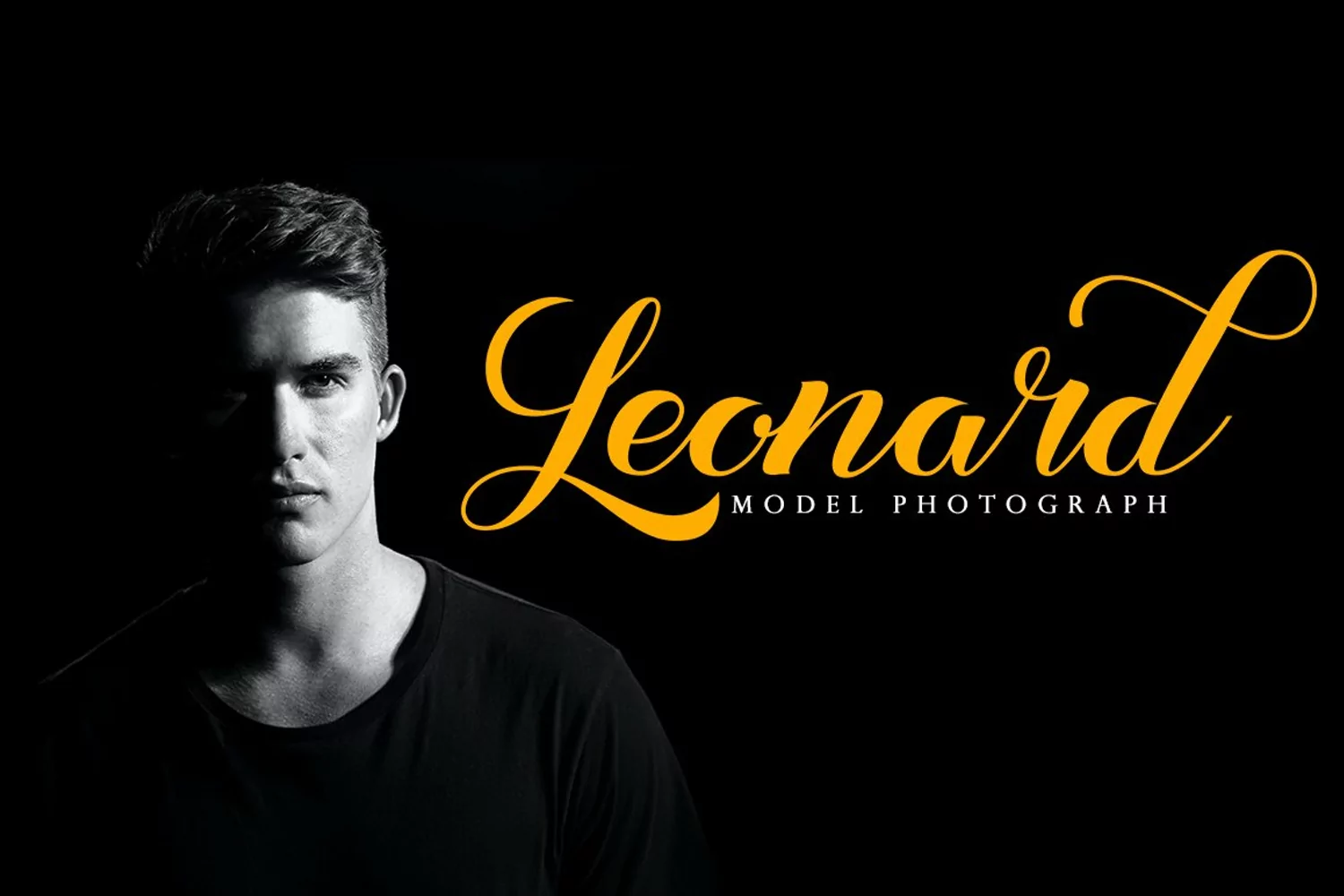
Baby tokyo is a, bold handwritten font with an modern style. This font is PUA encoded which means you can access all of the glyphs and swashes with ease! It features a varying baseline, smooth lines, gorgeous glyphs and stunning alternates. Fall in love with Italian Foods' incredibly versatile style and use it to your favorite design projects!